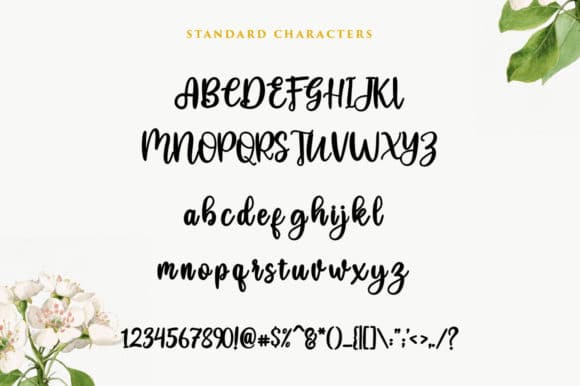
Heysweet feels equally charming and elegant. It looks stunning on wedding invitations, thank you cards, quotes, greeting cards, logos, business cards and every other design which needs a handwritten touch.